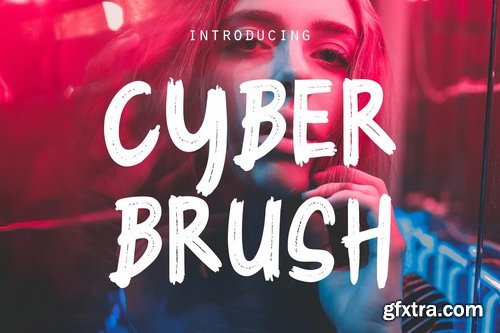
Cyber Brush is a modern brush, It has a elegant, classy look. It’s a great font for fashion, apparel projects, signature, album cover, logo, branding, magazine, social media, & advertisements, but also works great for other projects.